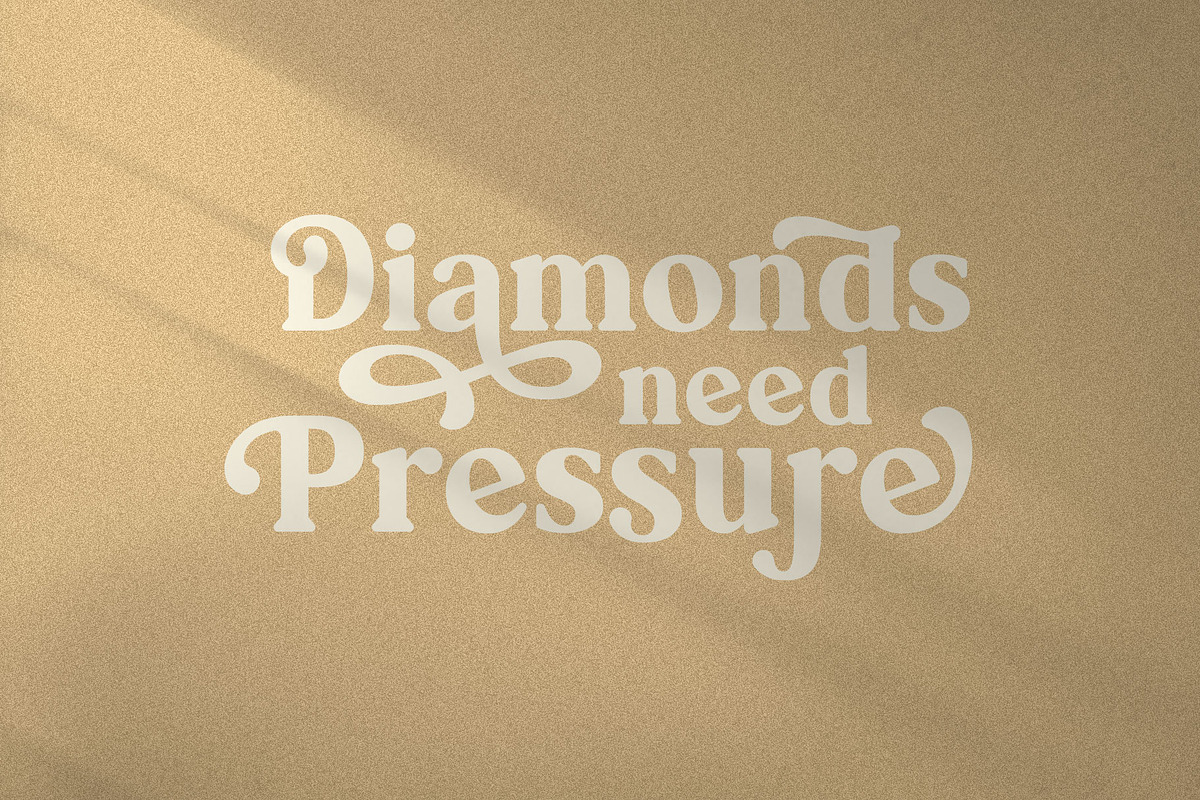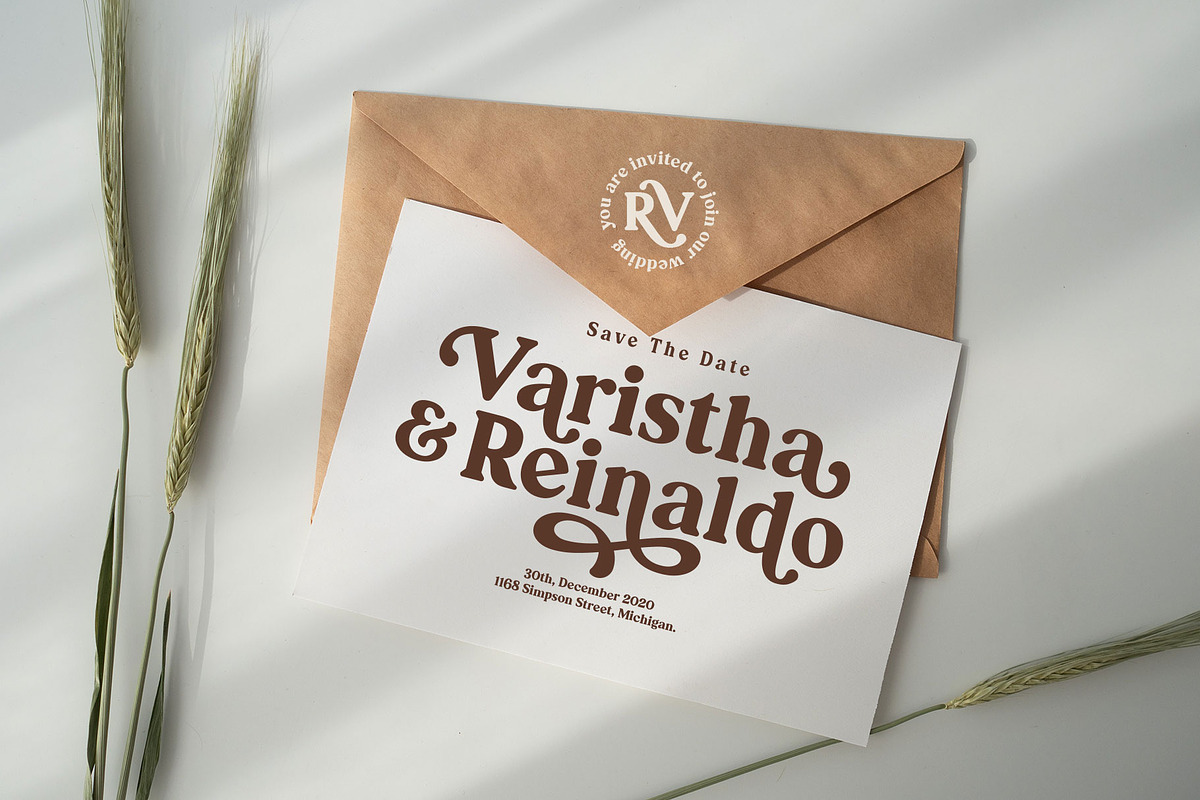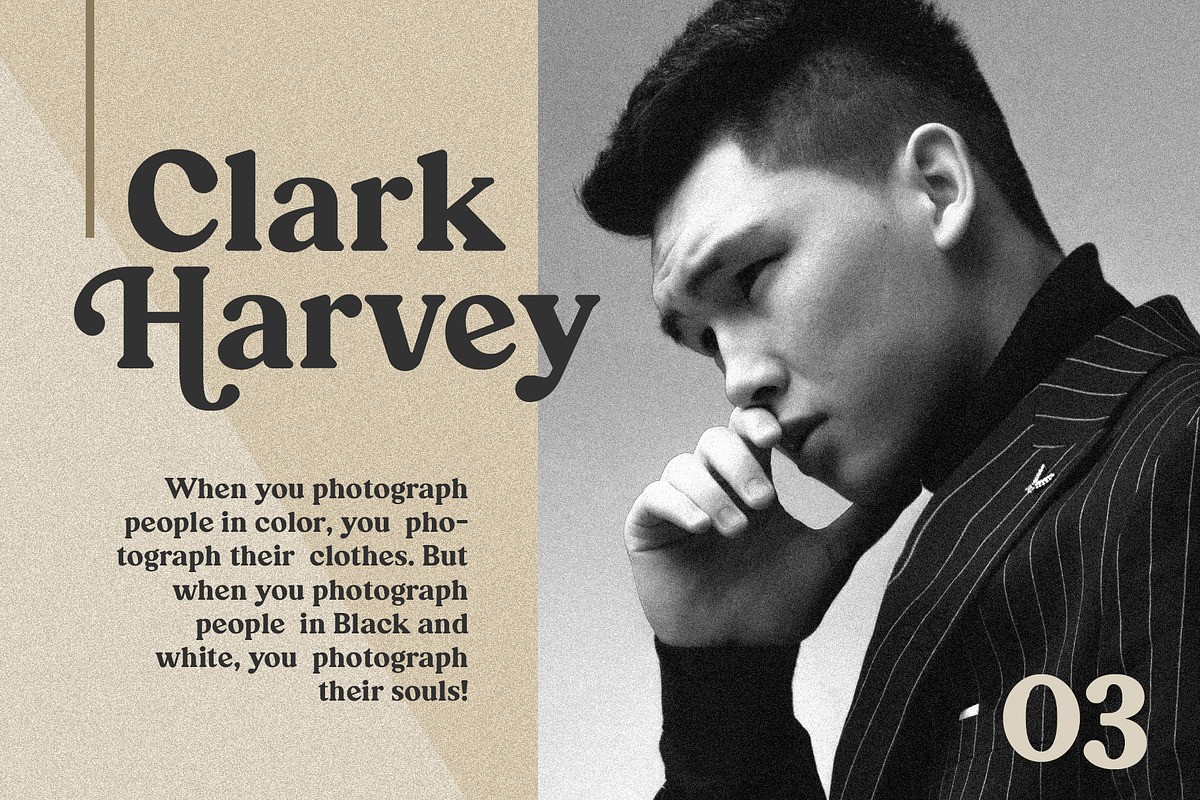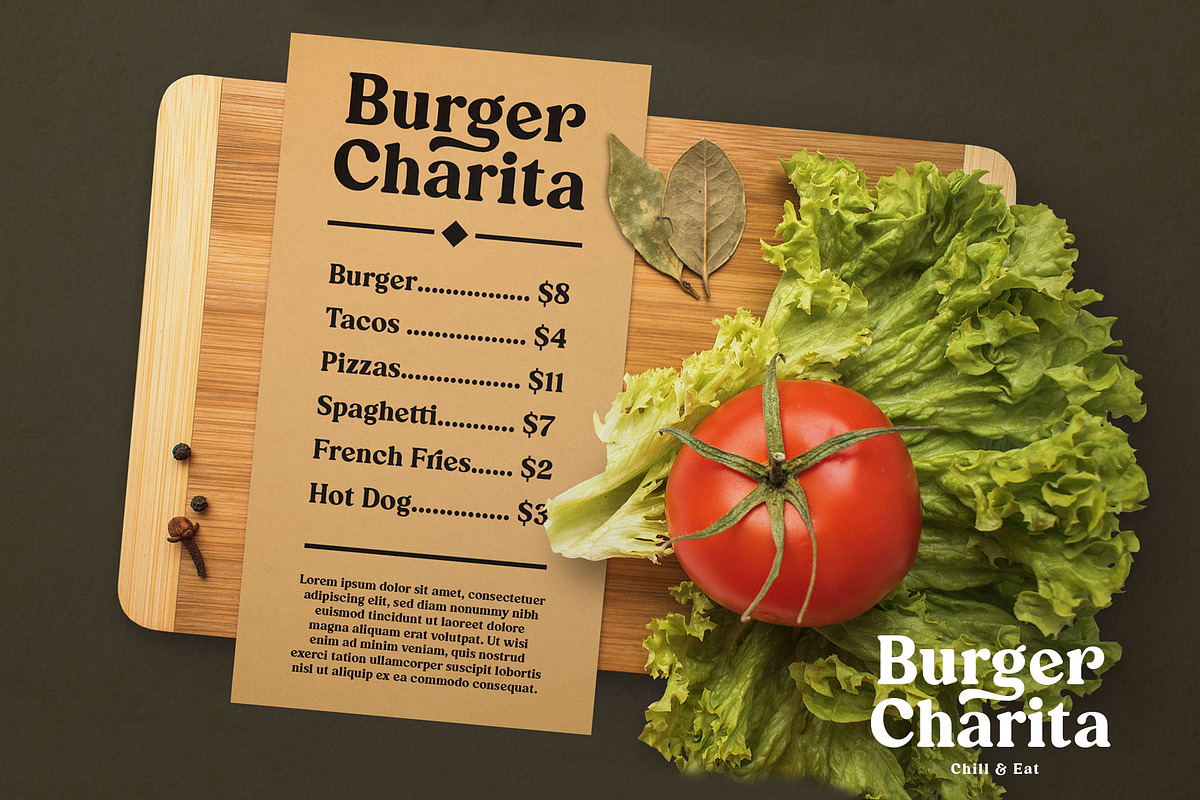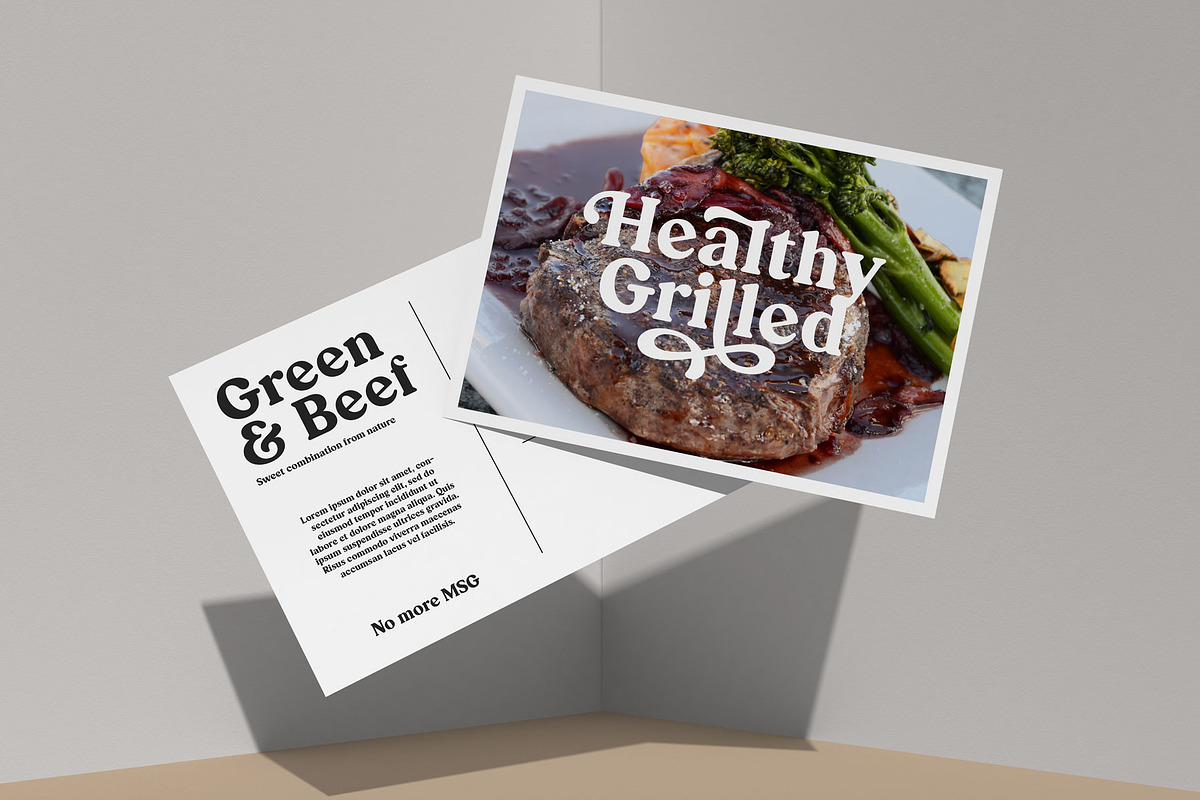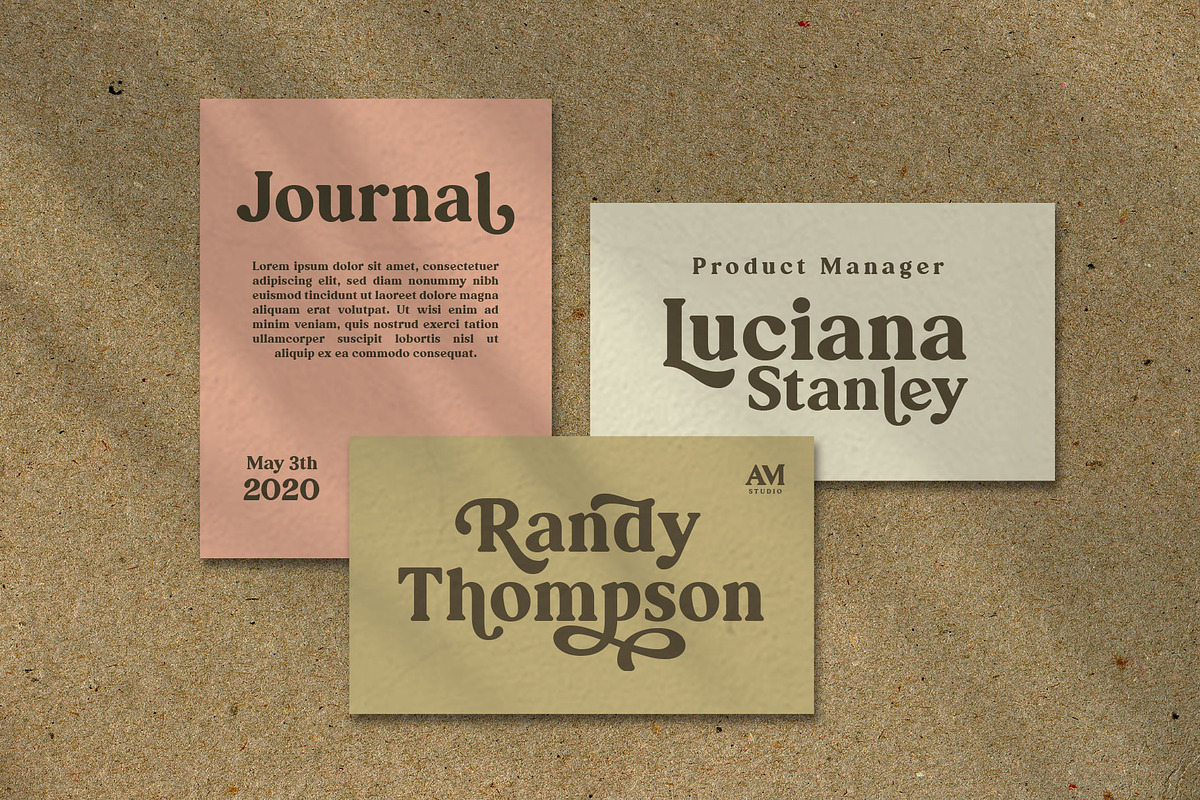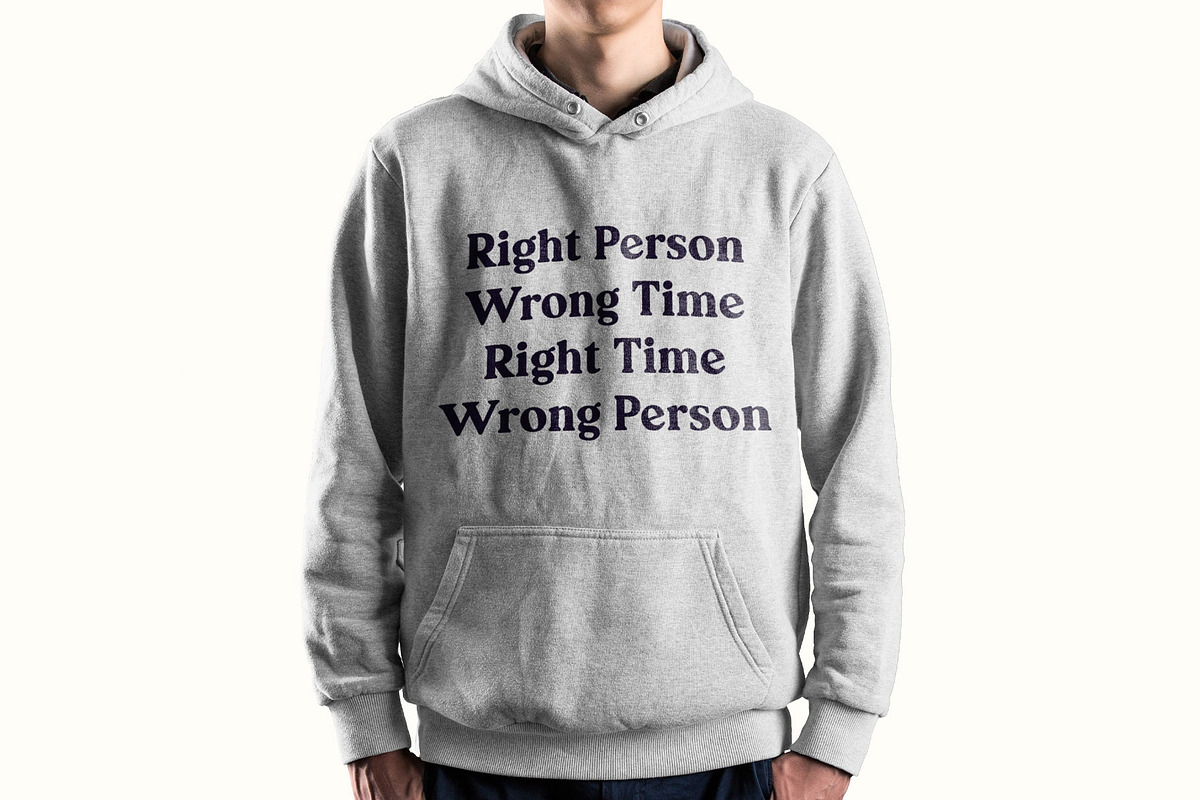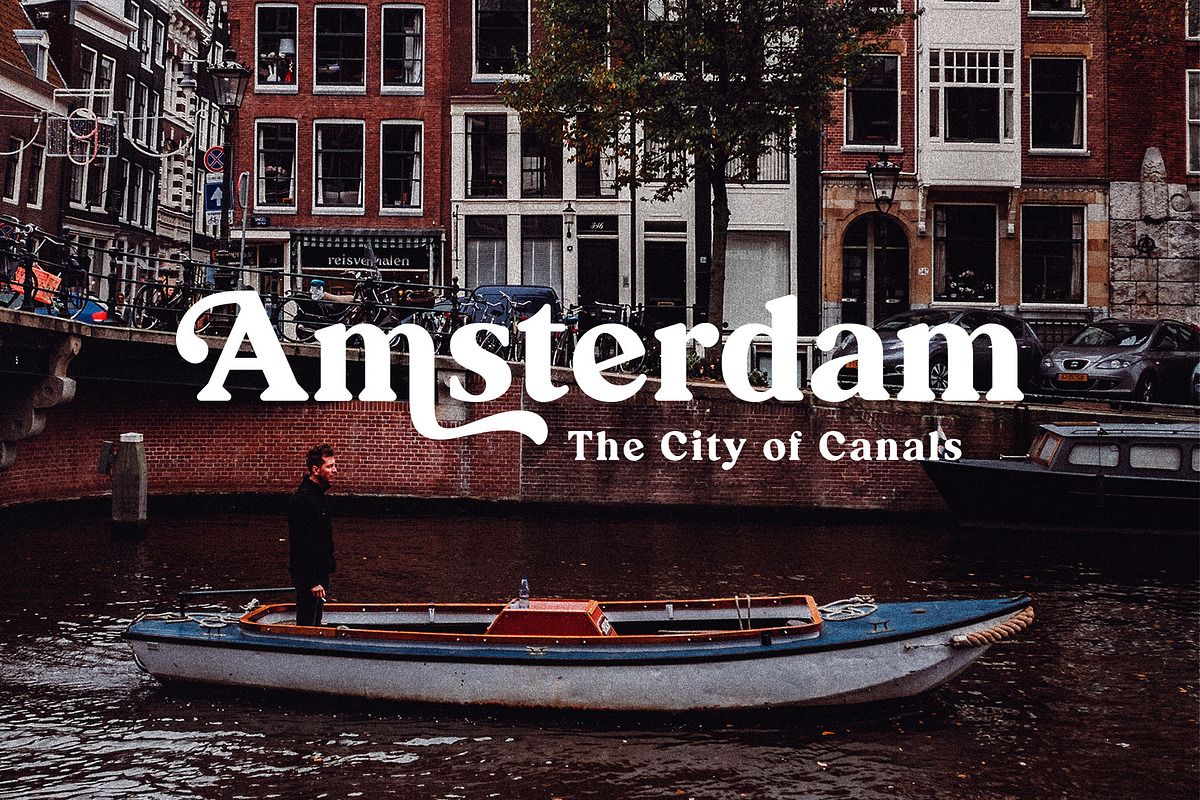
Ranille
Introducing Ranille a modern classy bold serif font. An elegant font with a bunch of alternates, and ligatures. Ranille is a display font inspired by retro curves style from the 50-60s era and brings it into modern design with bold weight.
Ranille is including with over 200+ alternative characters (PUA Encoded) that give you a wide range of typographic design results. Ranille is a versatile font that ready to make your designs more stand out such as posters, magazines, branding, logos, label, merchandise, presentation, advertising, cards, quotes and so much more!
- Contextual Alternates
- SS01 - SS06
- Accented Characters